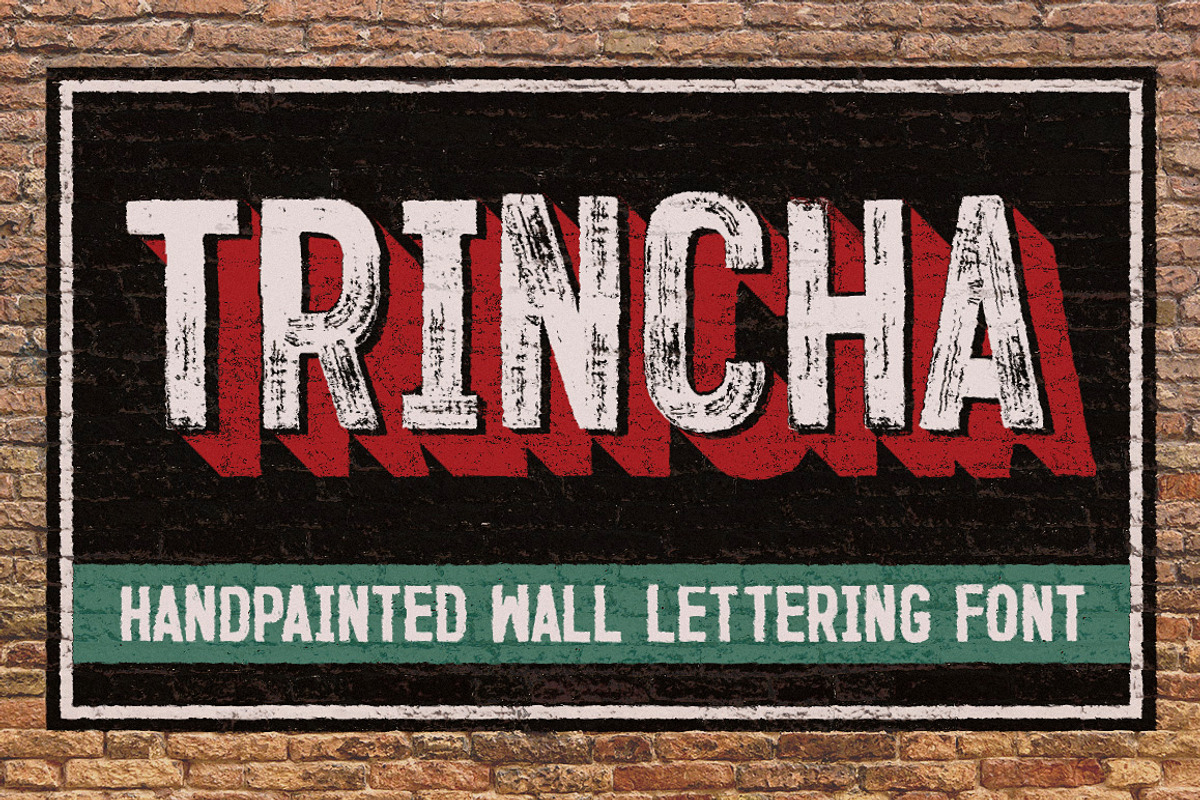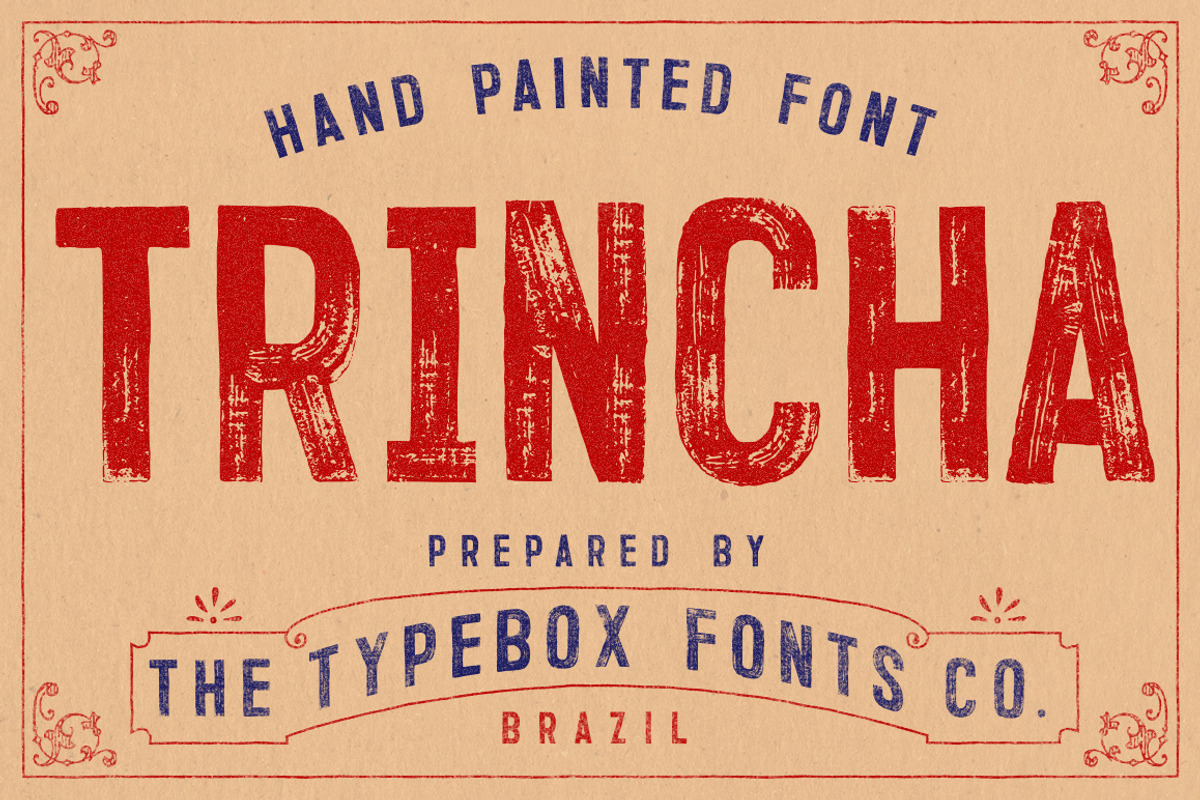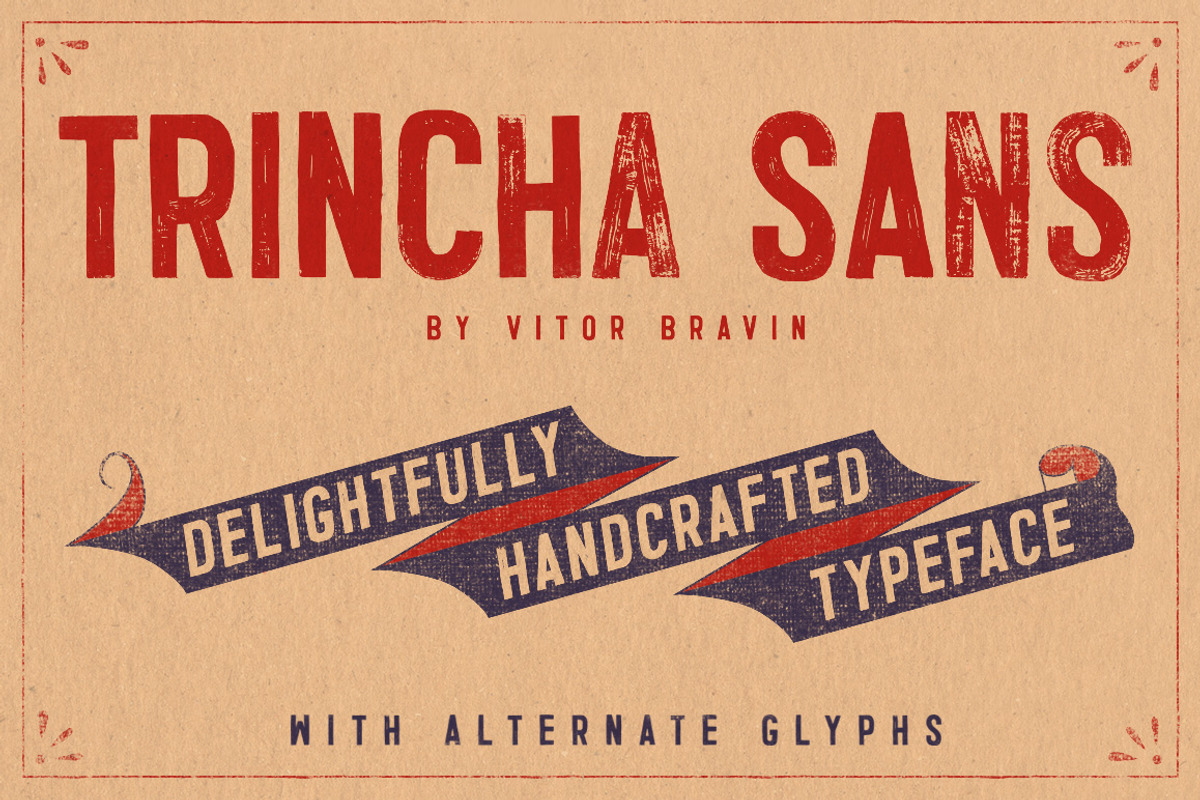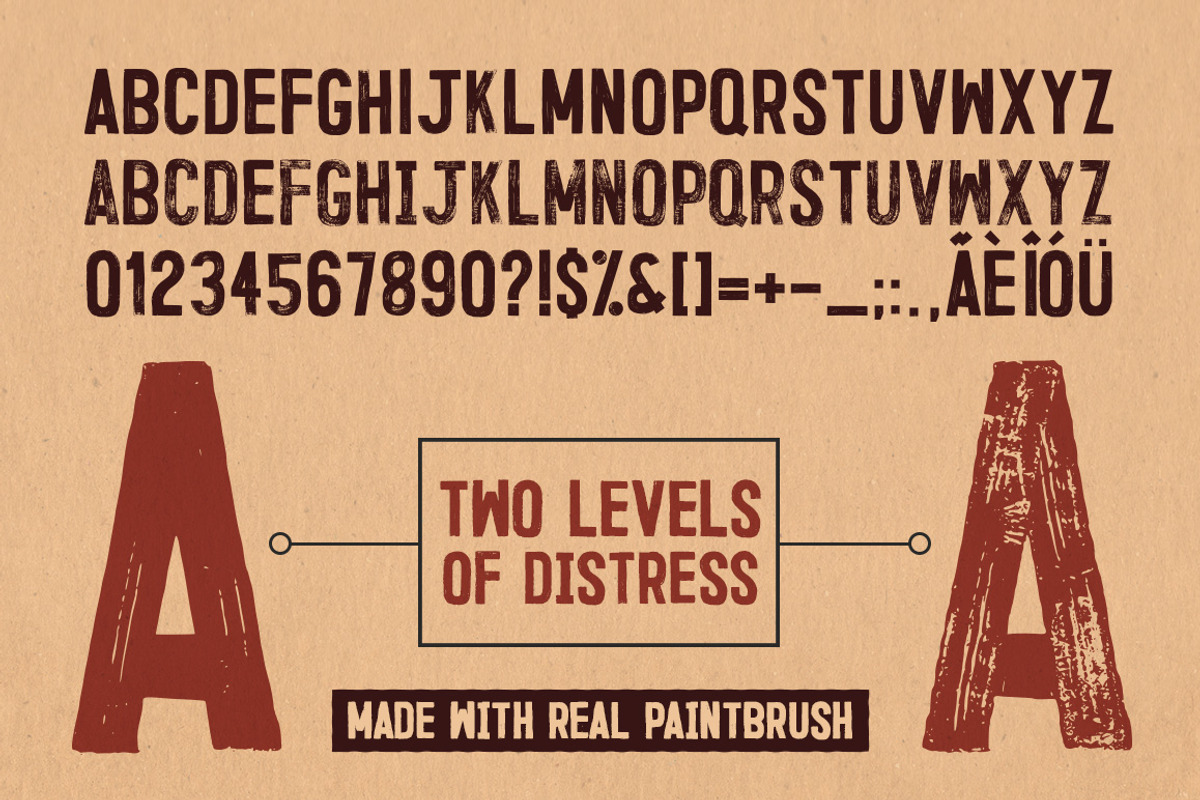
Trincha Typeface
Trincha Typeface by Type Box is a font selected for branding, posters, packaging, typography.
Why Trincha Typeface is worth a look
Trincha Typeface by Type Box fits naturally into Branding, posters, packaging, typography.